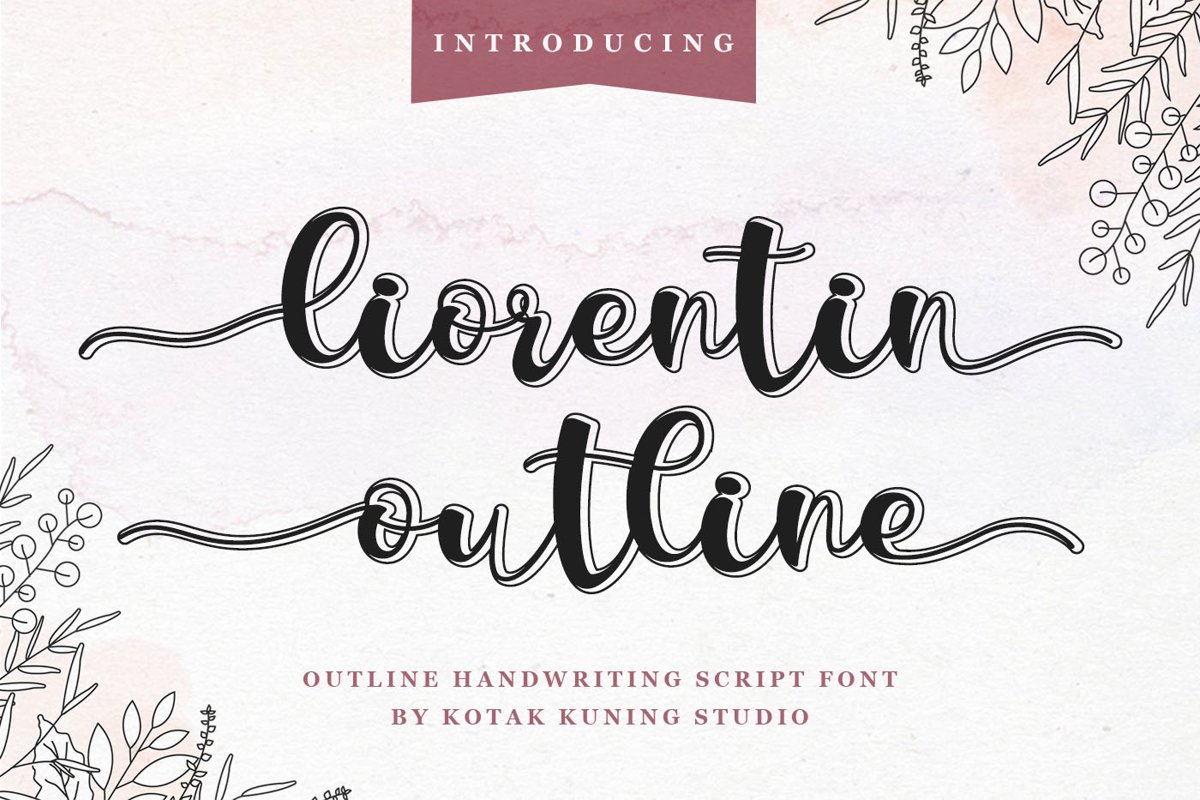
Outline Script Font - Liorentin Outline
LiorentinOutline
Liorentin Outline is a sweet and stunning script that will add a elegant feel to your next design idea. Fall in love with its playful look & feel.
Liorentin Outline Font is perfect for many different projects such as logos & branding, invitation, stationery, wedding designs, social media posts, advertisements, product packaging, product designs, label, photography, watermark, special events or anything.
• Liorentin Outline includes capital and lowercase letters, alternates, and Ligatures
• Numbers + punctuation
• Foreign language support